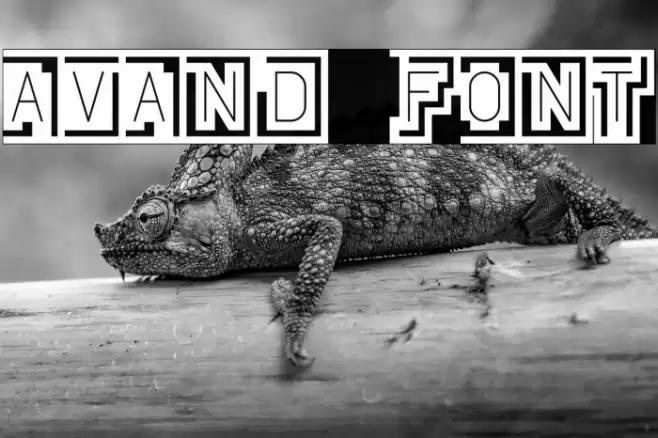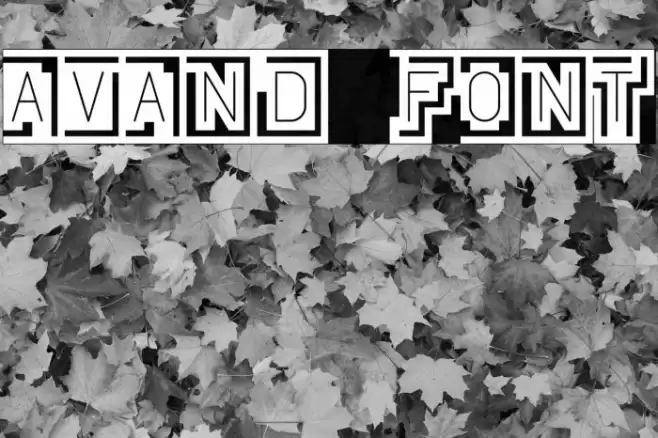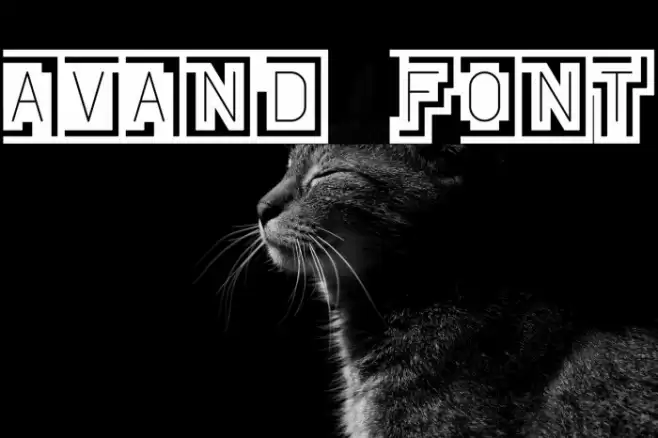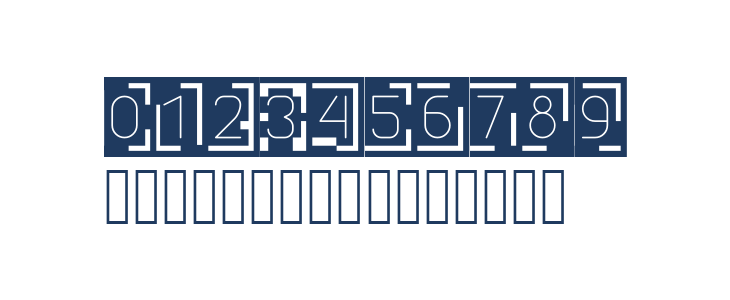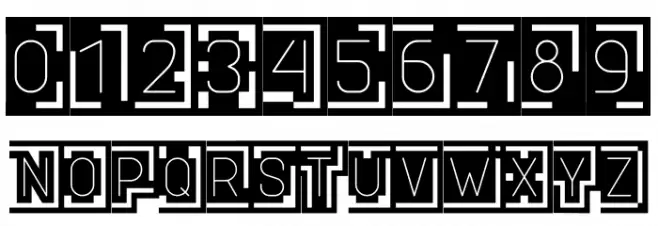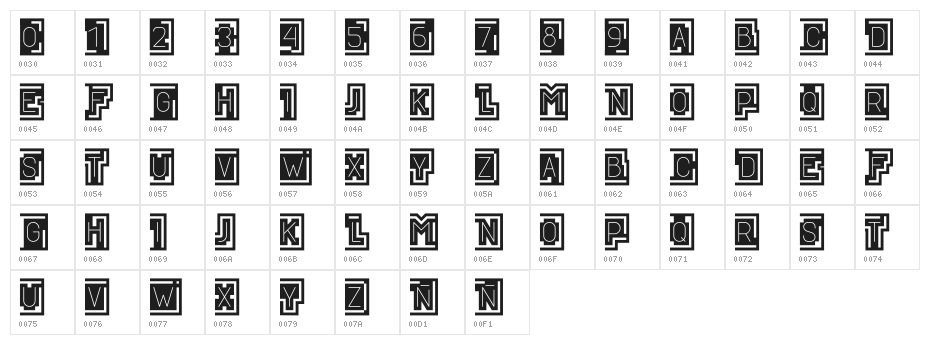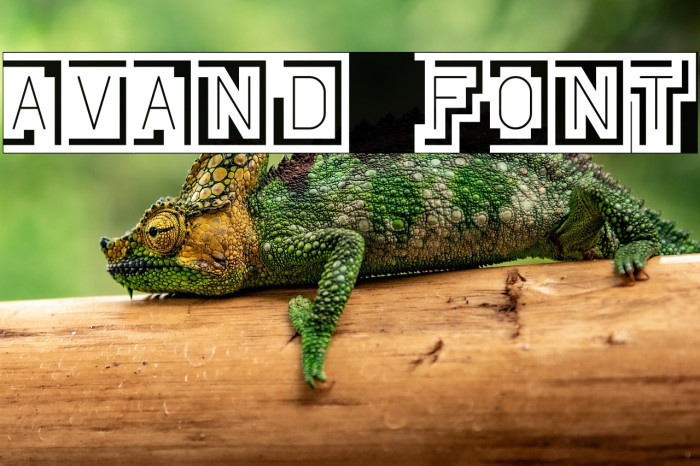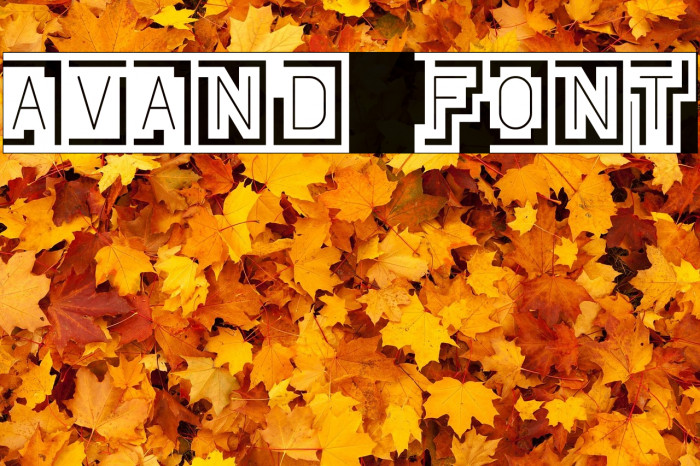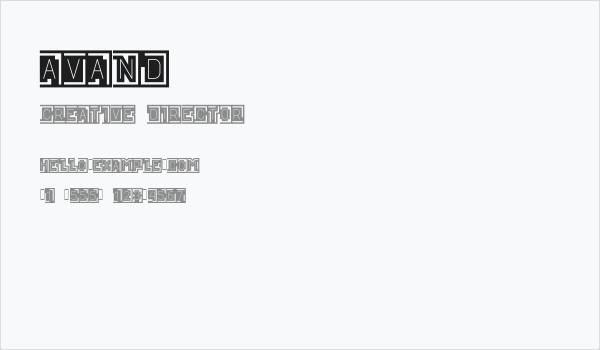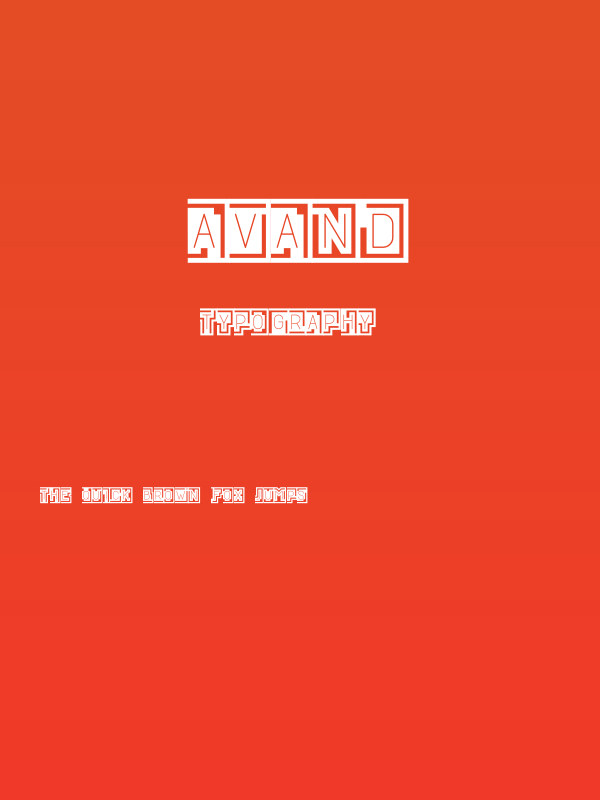
AVAND Font
AVAND Description
This font features a bold, geometric design with a distinct three-dimensional effect. Each character is outlined with a thick border, creating a layered appearance that adds depth and visual interest. The letters are uppercase and have a blocky, angular style, making them highly legible and impactful. The numbers and special characters follow the same design principles, ensuring consistency across all elements. This font's unique structure makes it suitable for eye-catching designs where a modern and dynamic look is desired.
Bold, geometric font with a three-dimensional effect and thick outlines from Uncategorized fonts.
- Proposed Projects: Ideal for posters, headlines, branding, and any project requiring a striking, modern typeface.